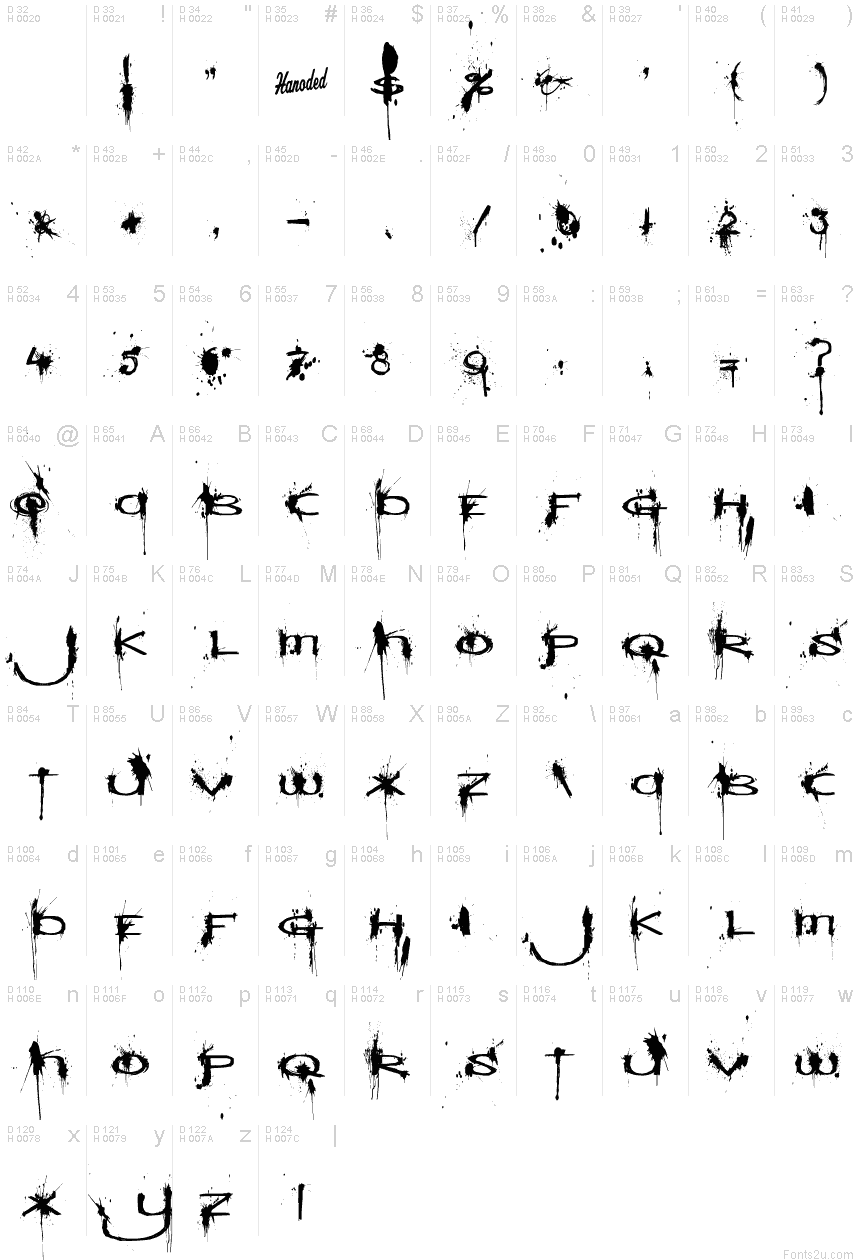
Windshield Massacre Condensed by David Kerkhoff is a free distressed horror display font with narrow, slashed letterforms. Ink-like spatters, ragged edges, and long downward drips give the lettering the look of a hastily painted warning.
Poster design is its clearest home, especially for horror films and music events. The scraped texture can also suit game title screens and Halloween merchandise by making the words feel damaged. For entertainment branding, the drips can become part of a recognizable blood-splashed identity.